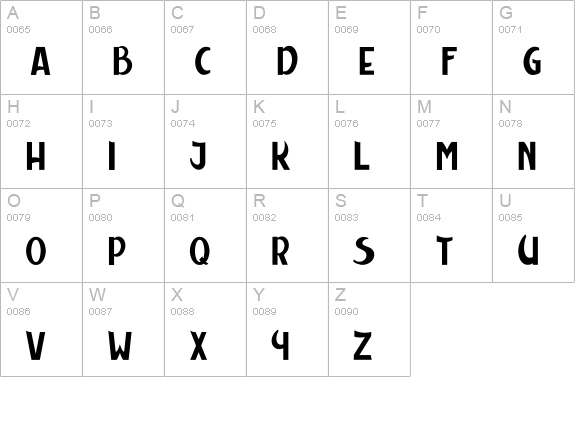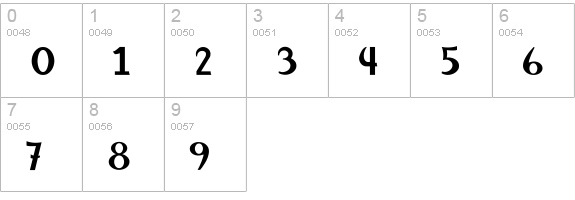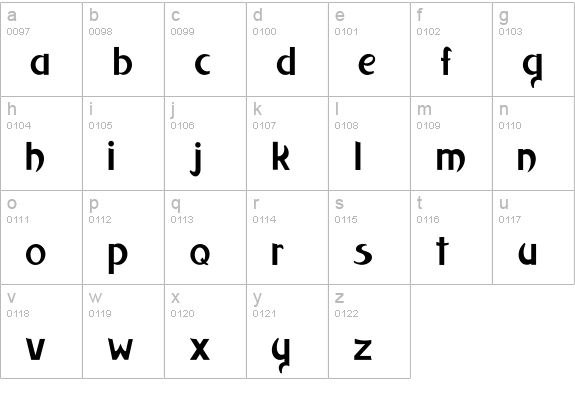
Introducing Lunax, a captivating and versatile font that is sure to elevate your design projects to the next level. With its modern yet elegant style, Lunax is perfect for various applications such as branding, packaging, posters, and more. This font features a unique blend of soft curves and sharp angles, creating a visually striking look that will make your text stand out.